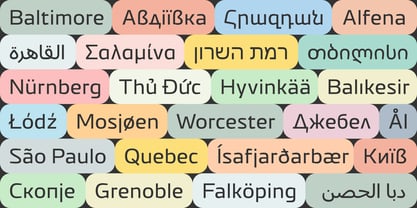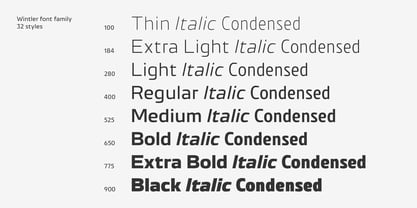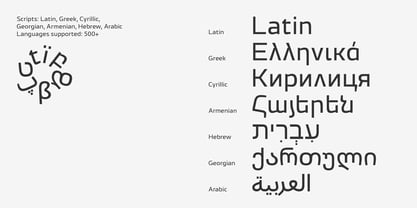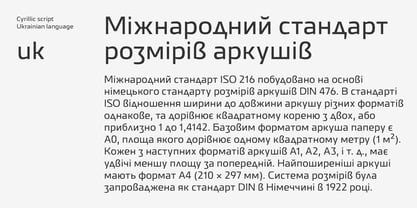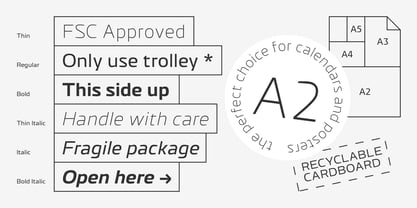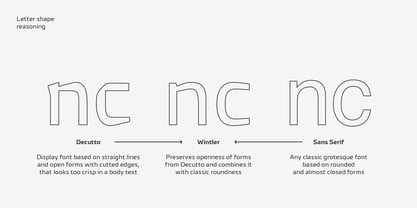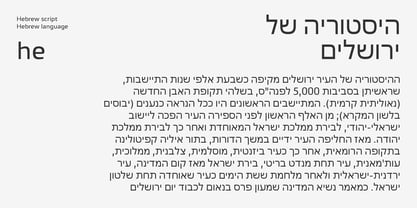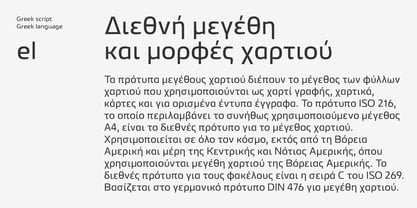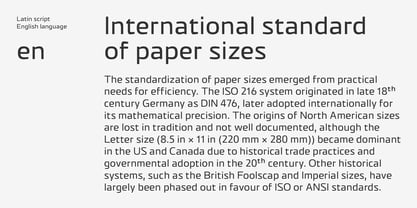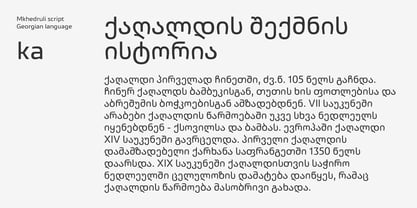
Wintler
by Michael Rafailyk
The Wintler Font Family was designed by Michael Rafailyk and published by Michael Rafailyk. Wintler contains 32 styles and family package options. More about this family
Wintler is a workhorse grotesque with a cold straightforward nature and neutral design. Its openness of forms originates from the award-winning Decutto typeface and is adapted for a more universal use. The story of Wintler originates from a cases where designers tried to use the Decutto typeface not only for headings, but also for body text. Well, Decutto wasn't designed for that, because it built on straight simplified forms that looks too crisp in a body text. The goal of Wintler is to preserve the openness of Decutto's forms and gently translate it into a more universal grotesque. Therefore, its letter shape balances between simplified rectangularity and classic roundness. The font family also received a wide range of styles from Thin to Black, from Normal to Condensed, and from Upright to Italic, as well as a variable font with Width, Weight, and Italic axes. This rework makes Wintler good for both headings and body text.
Michael Rafailyk is a type designer from Ukraine specializing in Cyrillic script, and works with with Latin, Greek, Mkhedruli, Armenian, Hebrew, and Arabic scripts. Awarded at TDC70 in the Type Design category. He holds bachelor’s degrees in musical composition and graphic design, and has over 10 years of experience in branding. He composes music for the 8-string guitar and piano. Drawing on this combined experience, Michael brings a strong sense of rhythm and visual harmony to his type design, often engaging with unconventional ideas and making them usable by synthesizing them with classical forms.